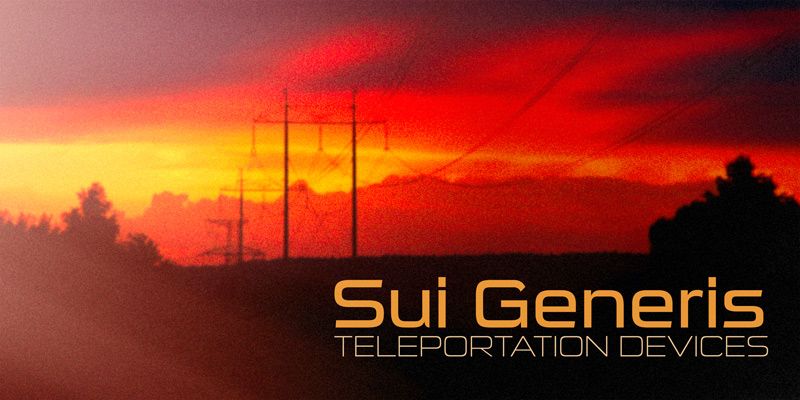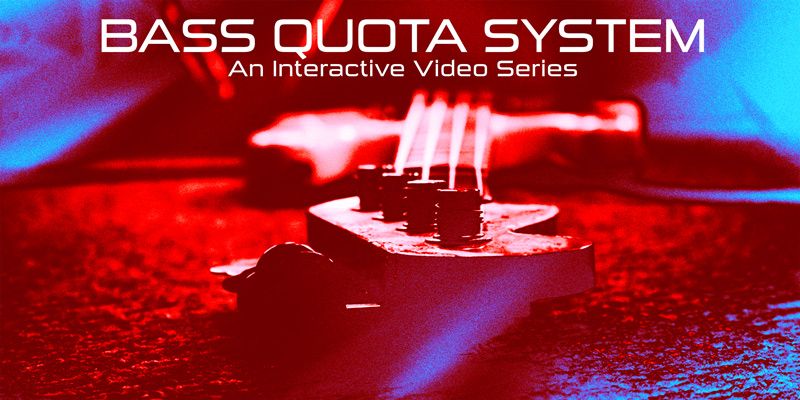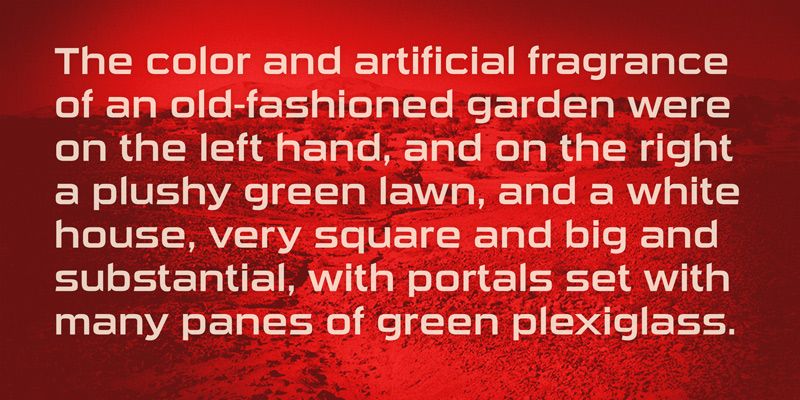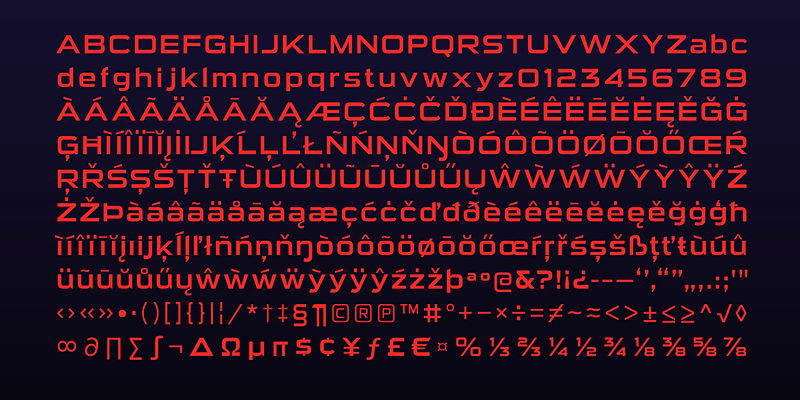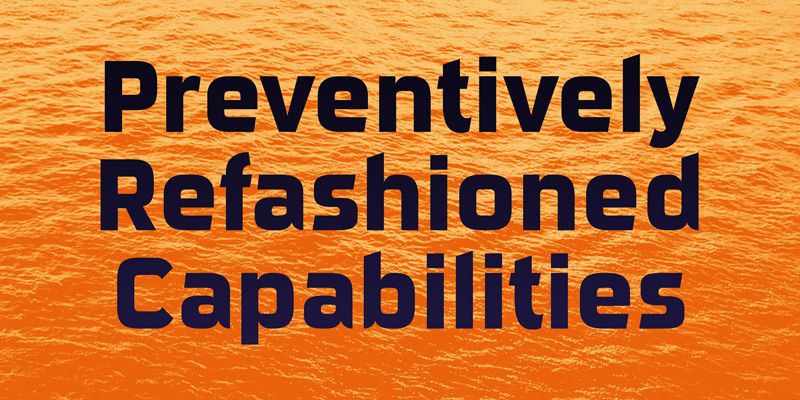
Sui Generis is a rounded-square sans with a distinctive middle ground between friendly consumer lettering and engineered geometry. Its corners feel softened, while the broad construction keeps a product name precise and athletic. It suits sports equipment, wearable technology, performance accessories, and electronics that need technical character without a harsh industrial voice. Seven upright weights, from UltraLight to Heavy, have matching italics. That range lets a thin campaign title and a strong model mark share the same recognizable construction. Use the heavier styles for concise names on products or packaging and the lighter ones when the geometry should feel more open across a display, sign, or presentation.